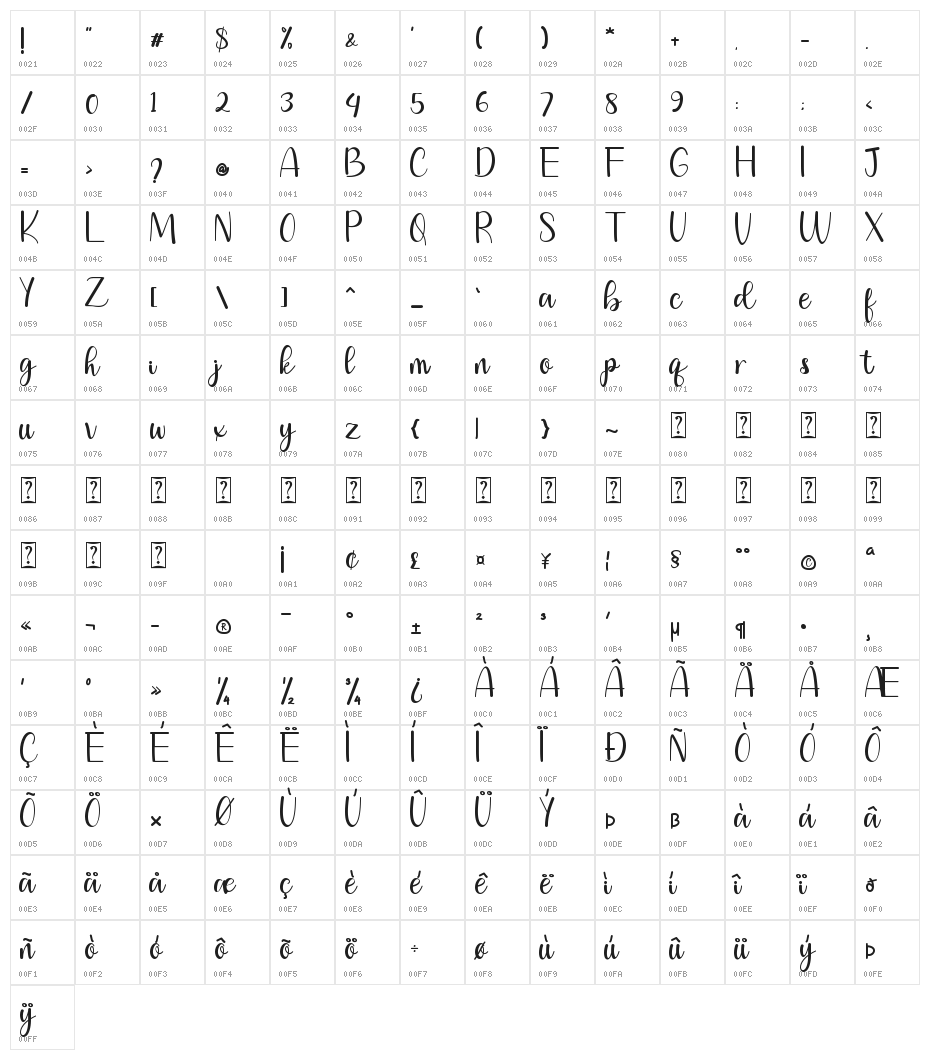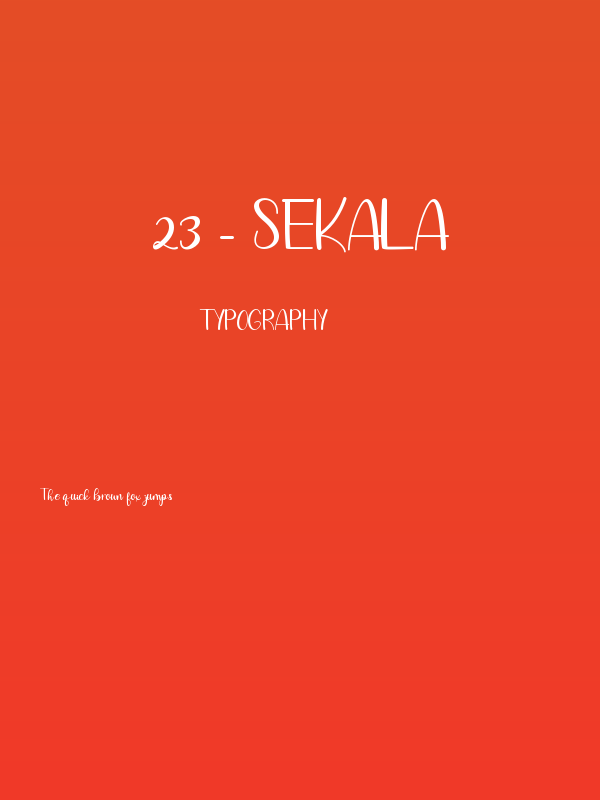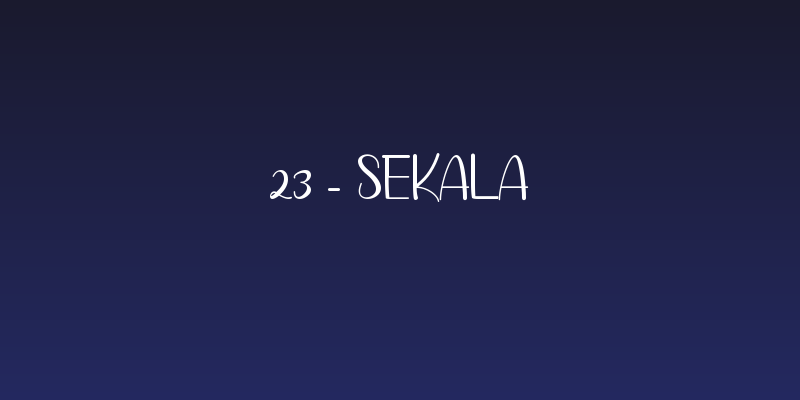
23 - Sekala Font
23 - Sekala Description
This font features a playful and whimsical style with a handwritten appearance. The uppercase letters are tall and slender, with a slight slant that adds a dynamic feel. The lowercase letters are more rounded and flow smoothly, creating a harmonious balance between the two cases. The numbers are consistent with the overall style, maintaining the playful and casual aesthetic. Special characters are creatively designed, fitting seamlessly with the rest of the font. The strokes vary in thickness, providing a medium contrast that enhances readability while maintaining a unique character.
| Proposed Projects | Ideal for greeting cards, invitations, playful branding, and social media graphics. |